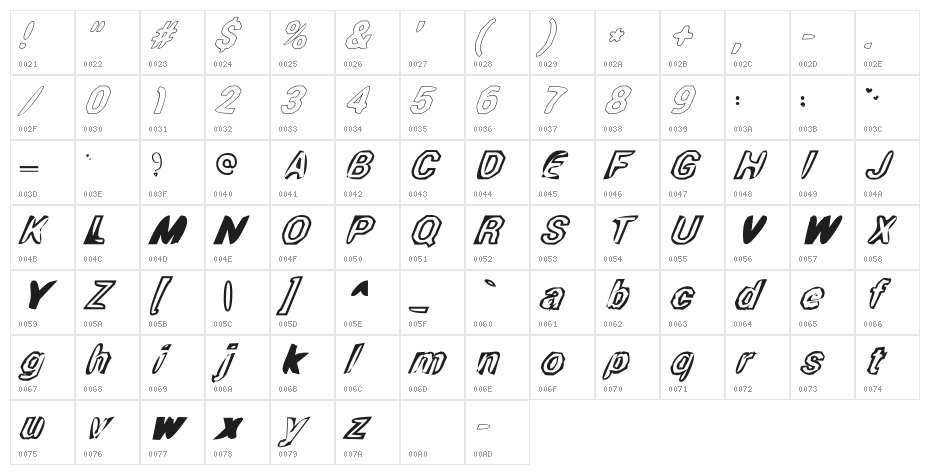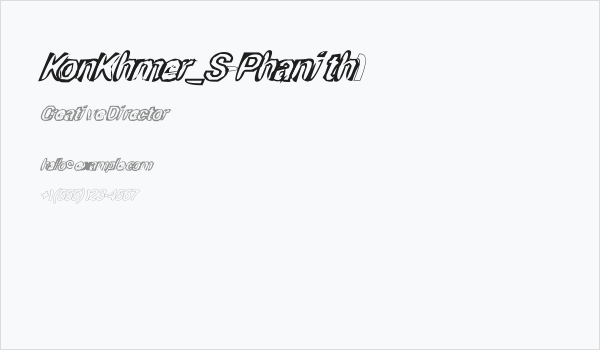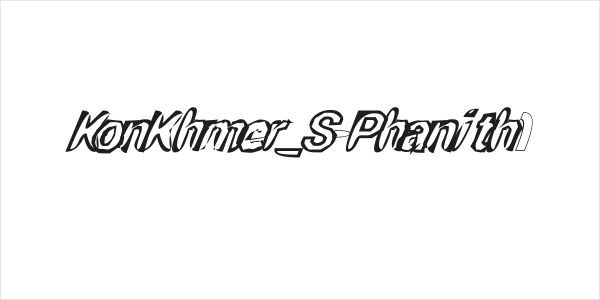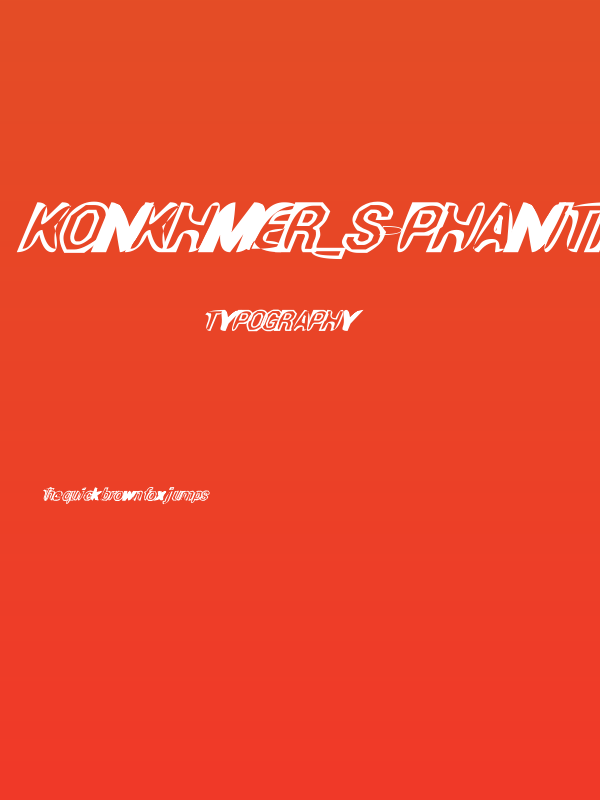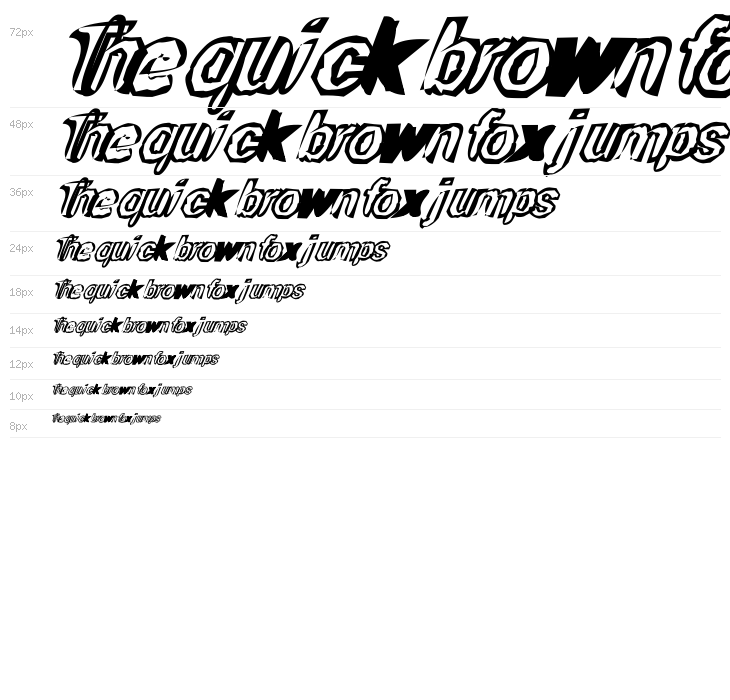
KonKhmer_S-Phanith1 Font
KonKhmer_S-Phanith1 Description
This font features a dynamic and bold style with a strong sense of movement and energy. The characters are designed with a slanted, italicized appearance, giving them a sense of speed and urgency. The strokes are thick and bold, with a high contrast between the thick and thin parts of the letters. This creates a striking visual impact, making the font highly suitable for attention-grabbing headlines and display purposes. The uppercase and lowercase letters maintain a consistent style, with the uppercase letters being slightly more angular and pronounced. The numbers and special characters follow the same design principles, ensuring a cohesive look across all elements.
Proposed ProjectsIdeal for sports branding, dynamic posters, and energetic advertising campaigns.